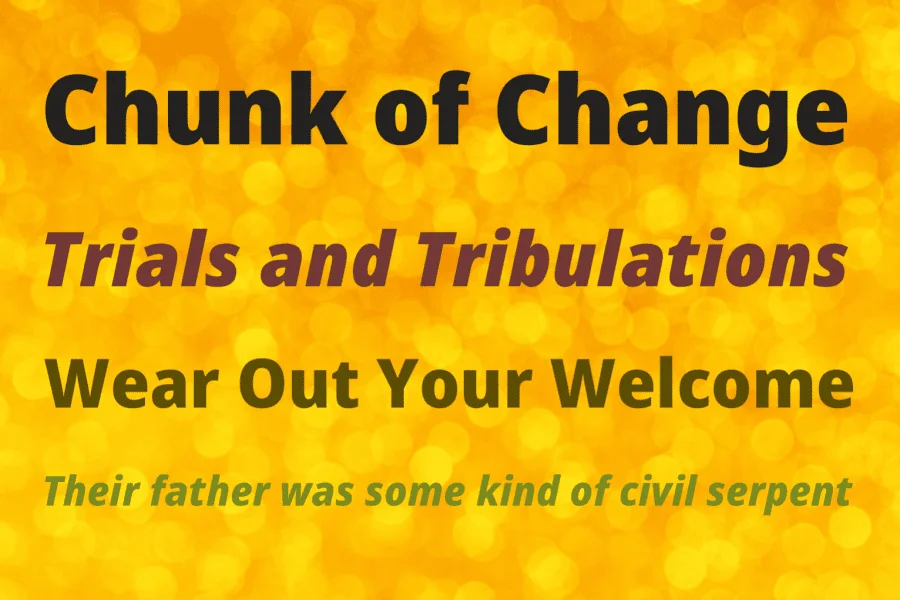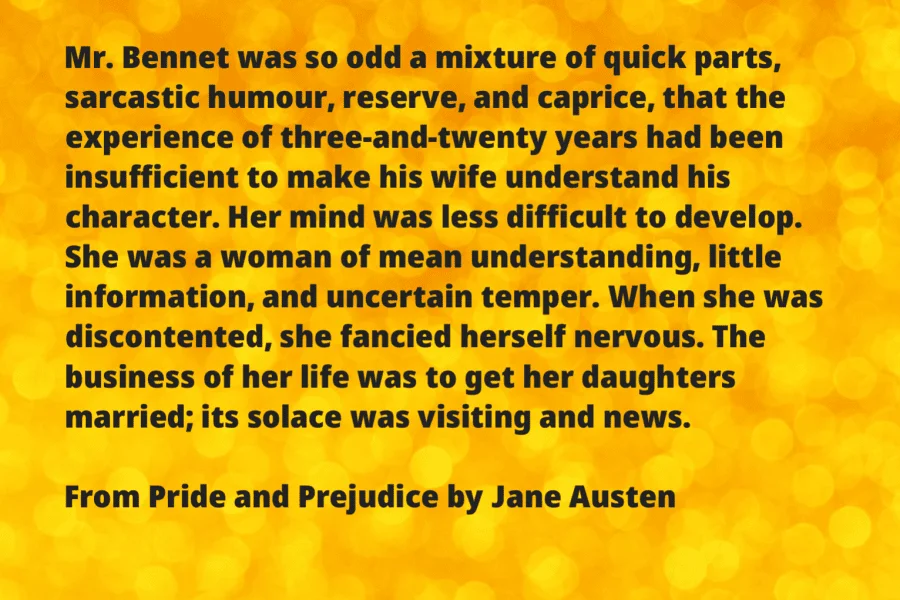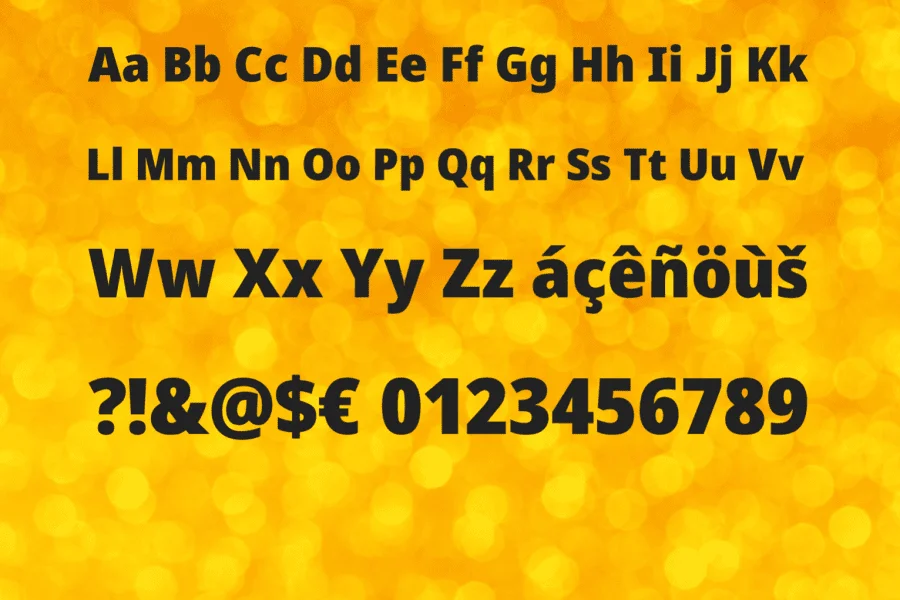
Is developed from Noto Sans Display. Main changes include:
- Bulgarian alternates for Cyrillic;
- True tabular figures (0-9, currencies, and punctuation);
- Flattened alternates for single-storey ‘g’, serifed ‘I’, and non-descending ‘J’.
- It also has a sister serif family, Avrile Serif.